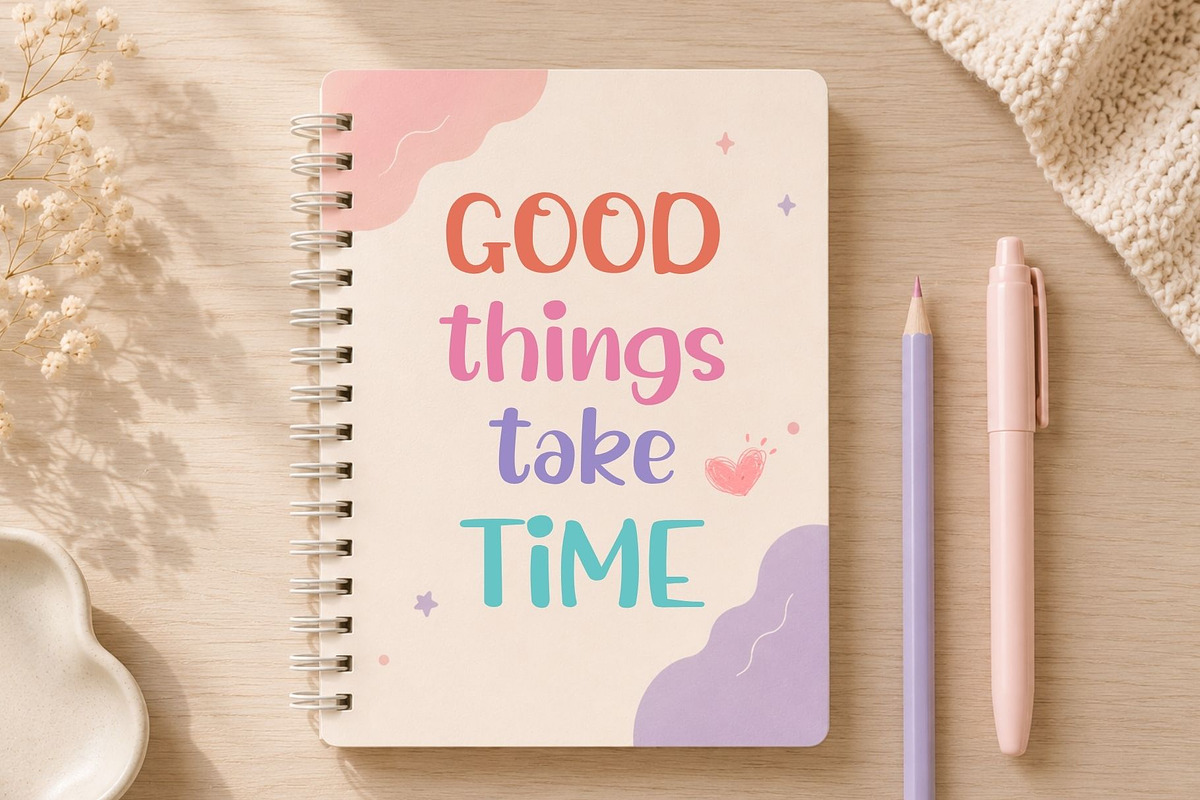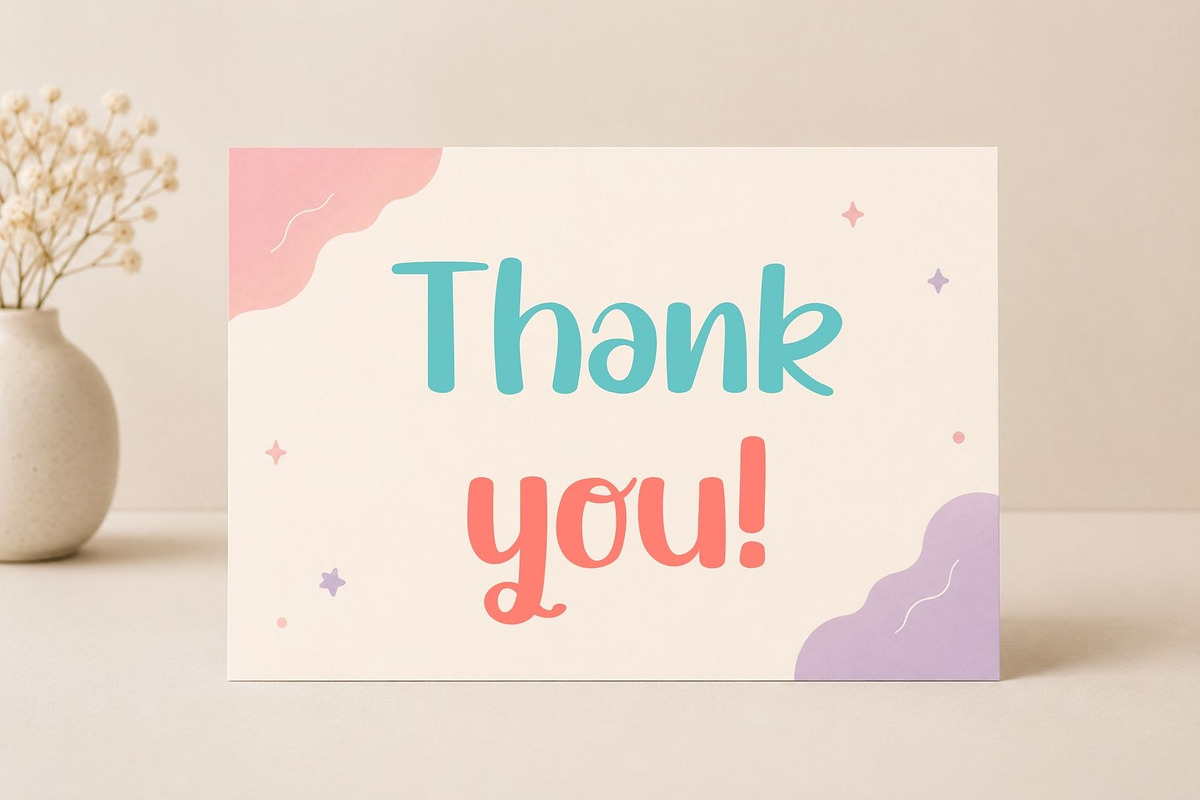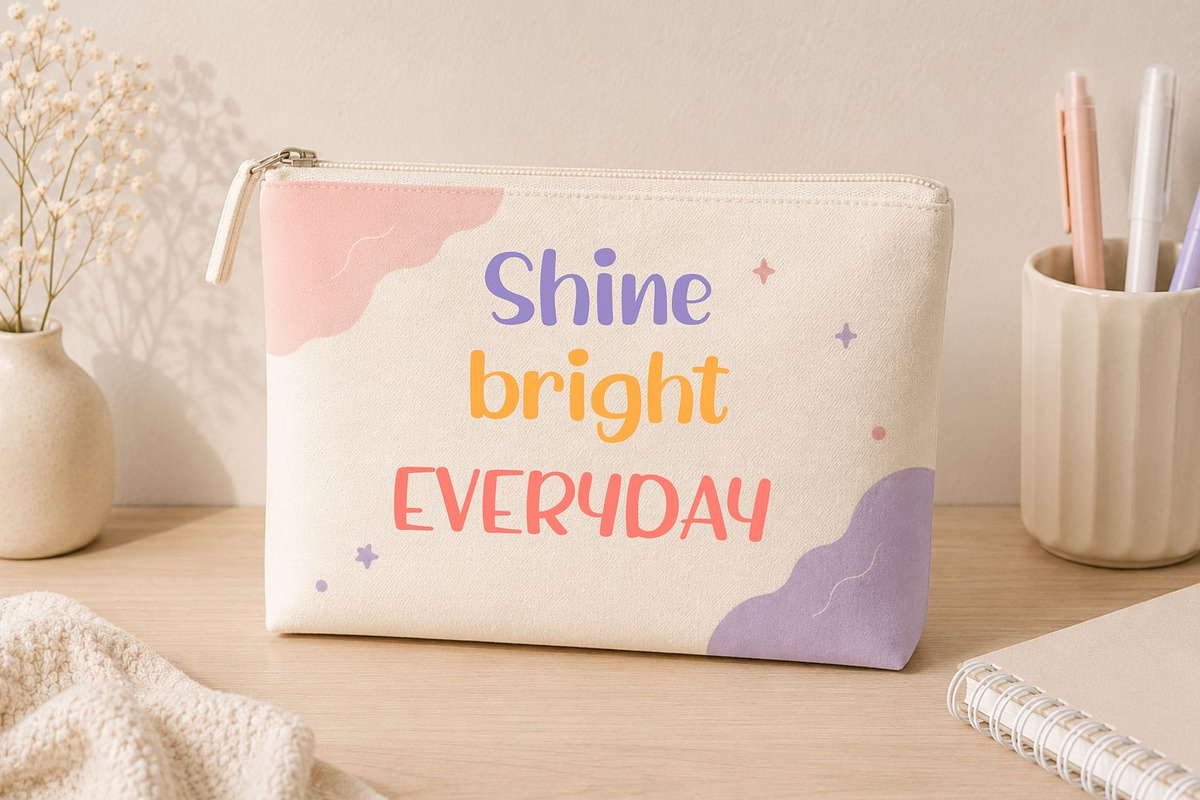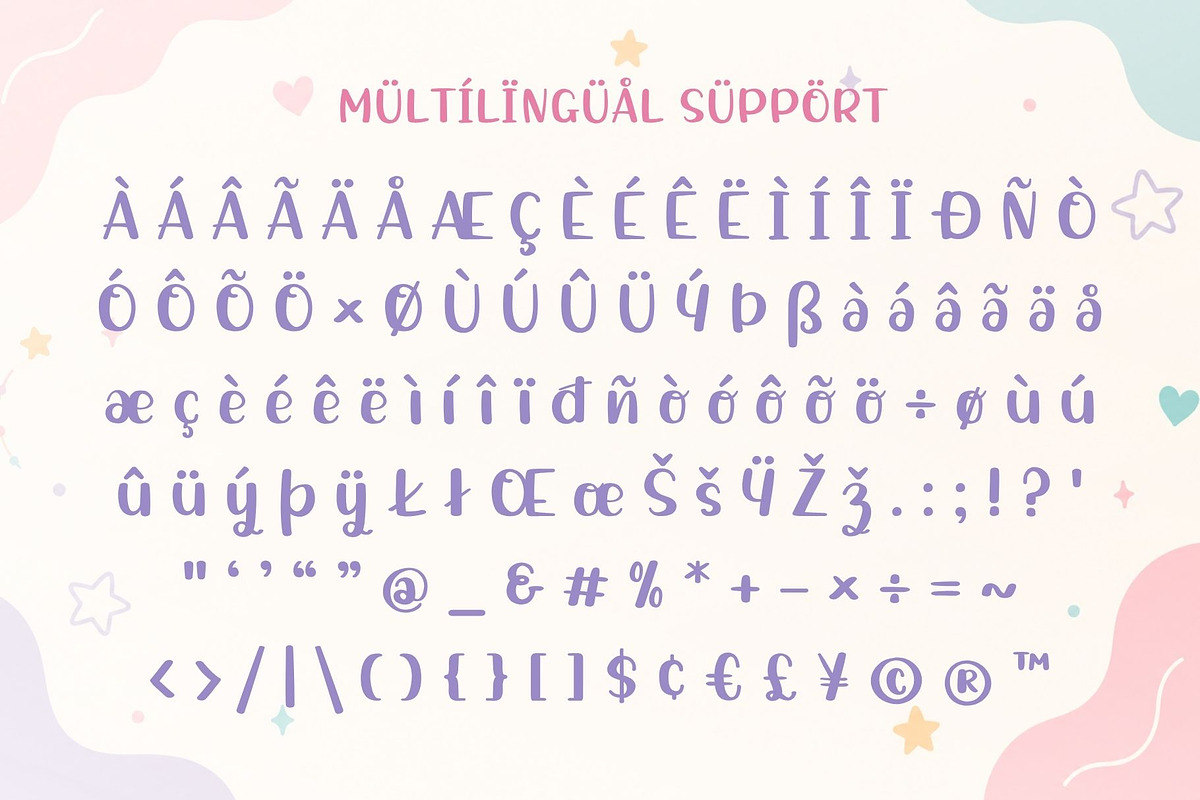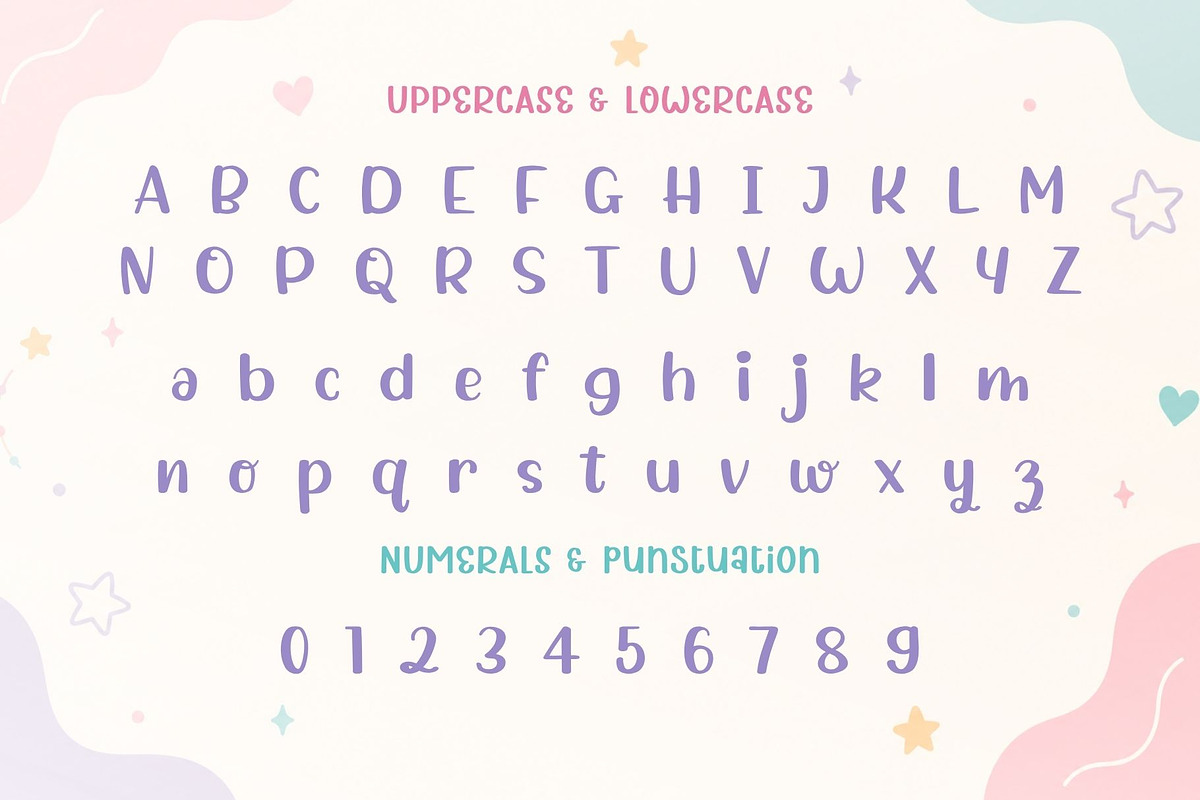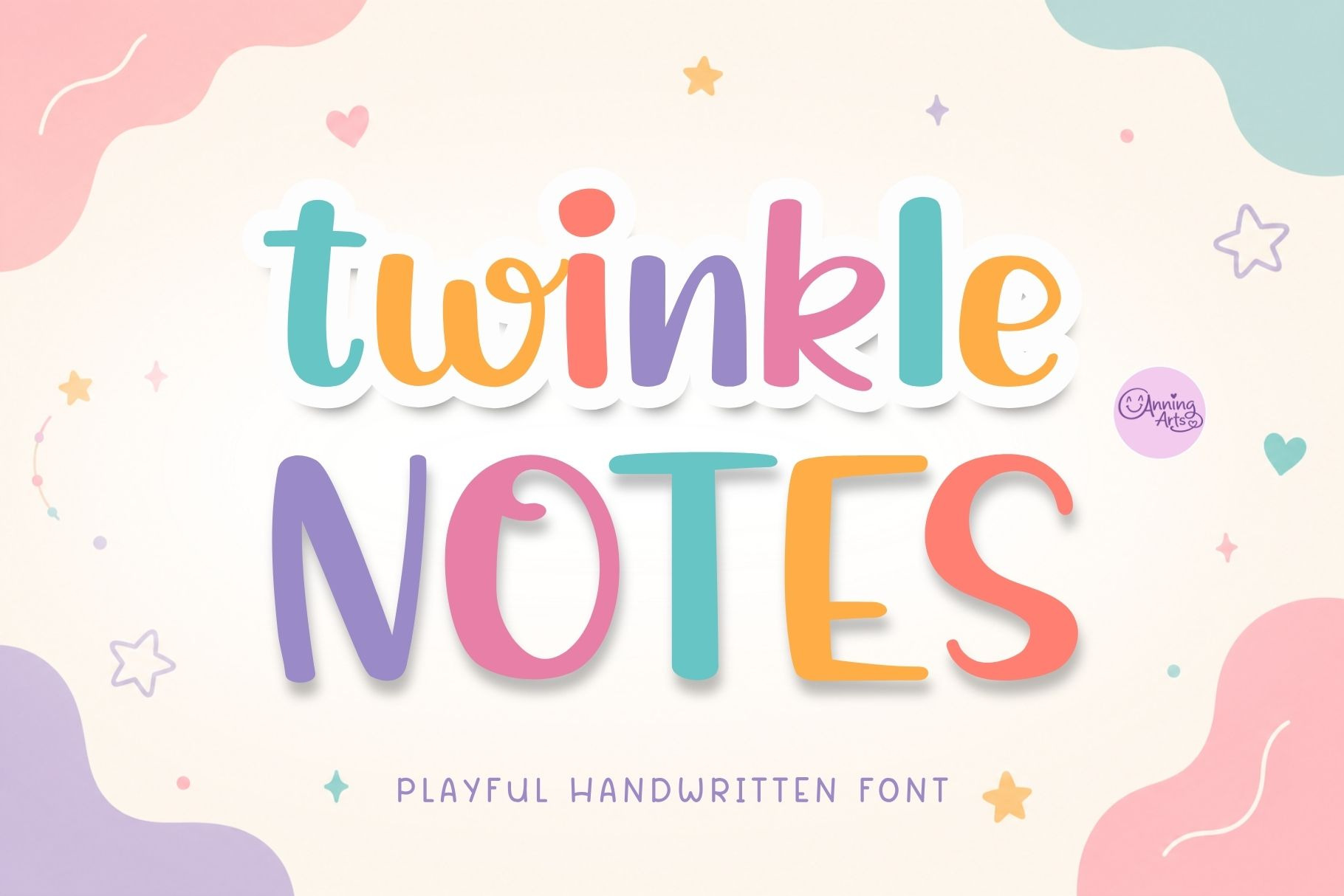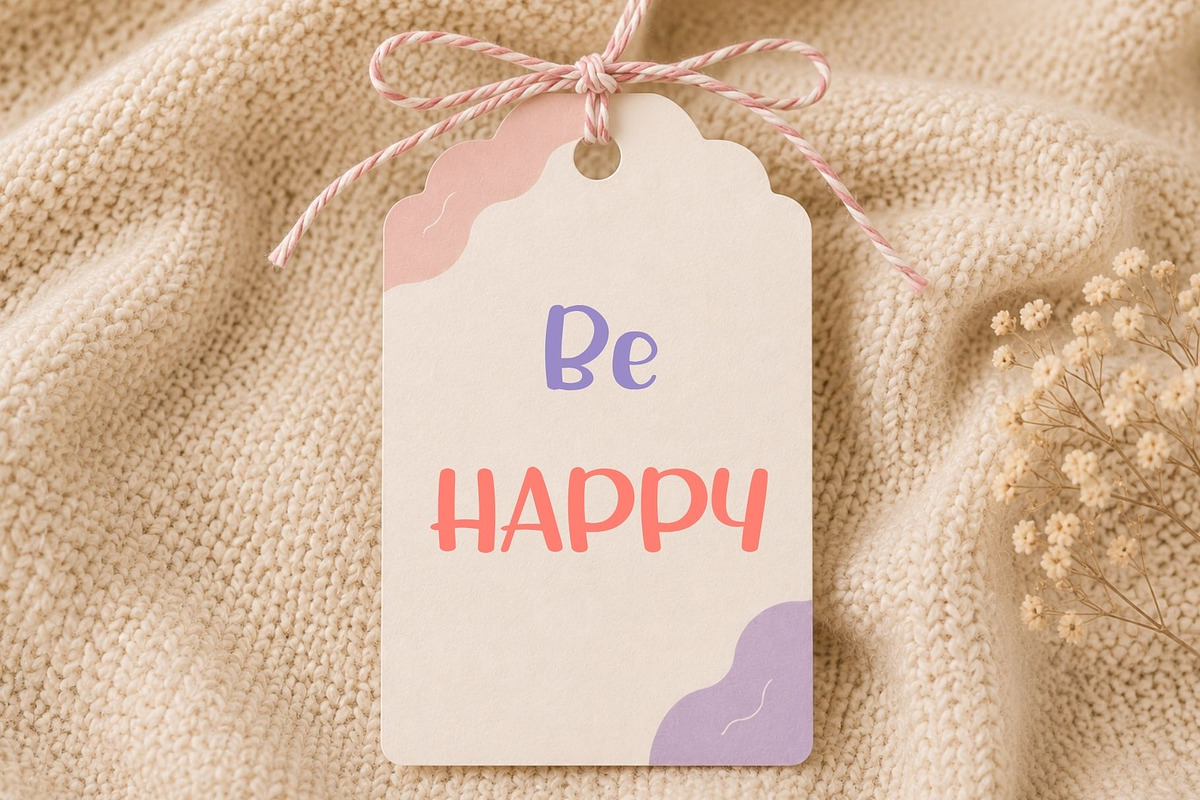
Twinkle Notes – Handwritten Font
Twinkle Notes is a playful handwritten font designed with soft curves, rounded strokes, and a clean, friendly style. Its charm makes it suitable for both children's designs and modern creative projects.
The font includes uppercase and lowercase letters, numerals, punctuation, and multilingual support for versatile use across a wide range of languages.
Ideal for classroom resources, educational materials, planners, journals, greeting cards, invitations, nursery decor, Cricut projects, SVG crafts, branding, packaging, social media graphics, printable products, t-shirts, mugs, stickers, and other DIY creations.